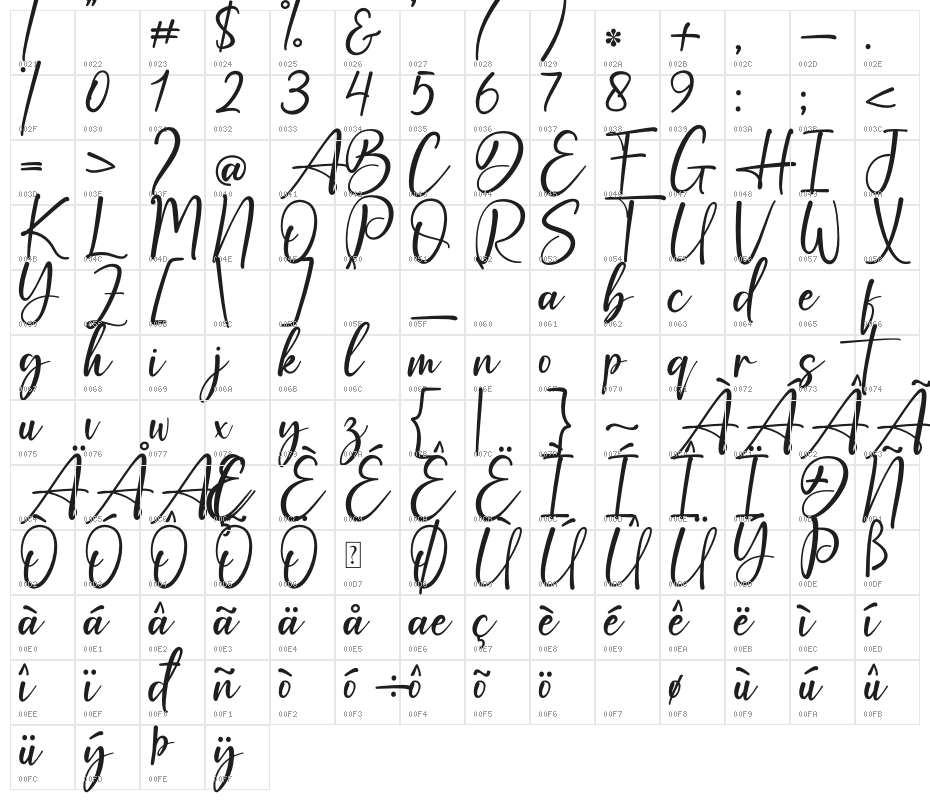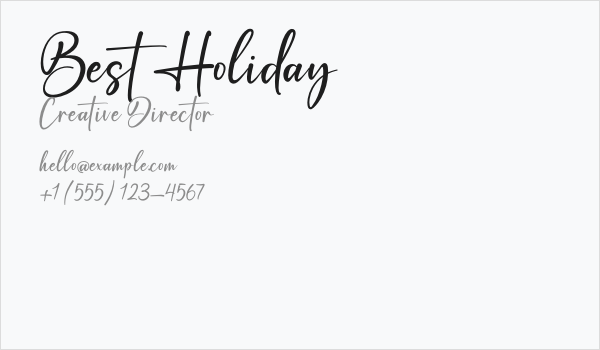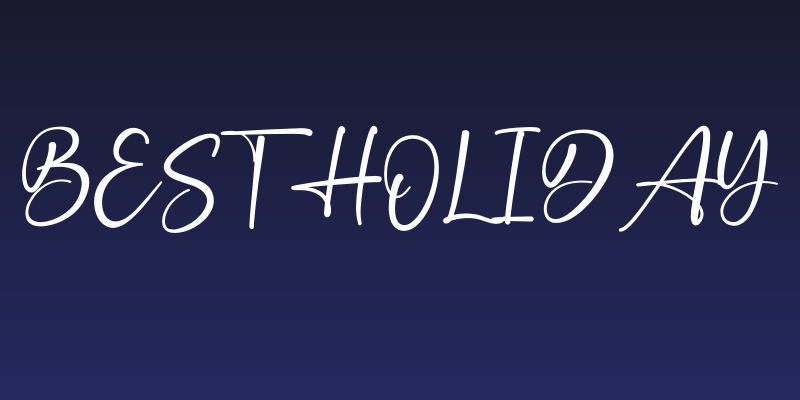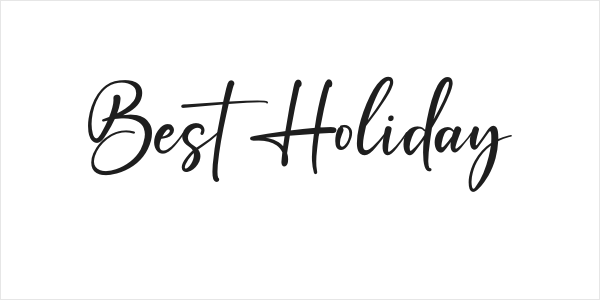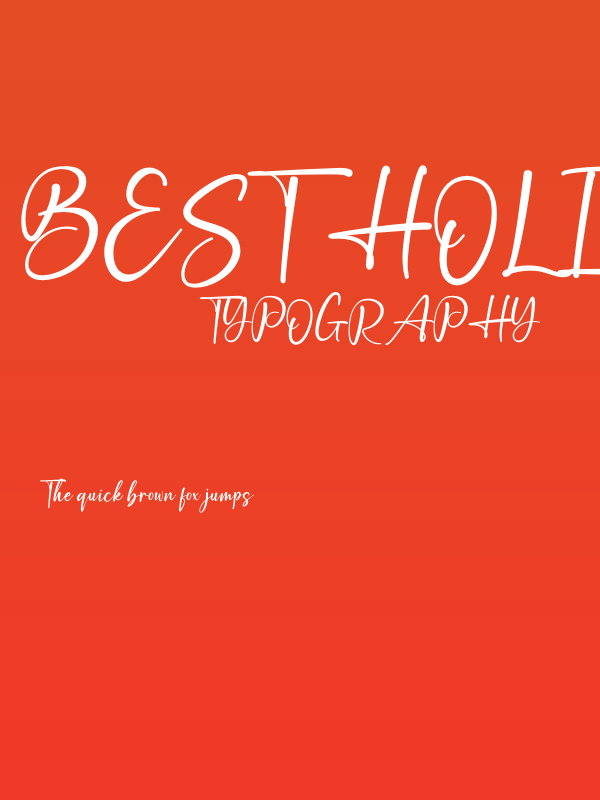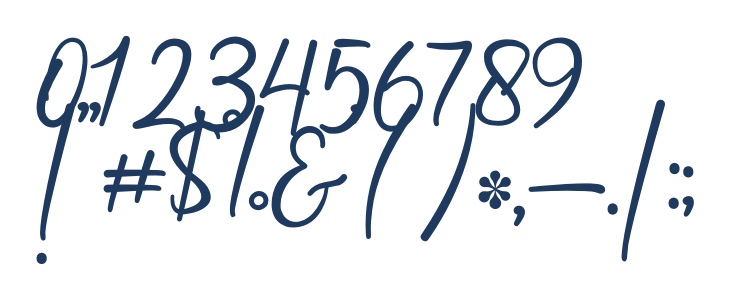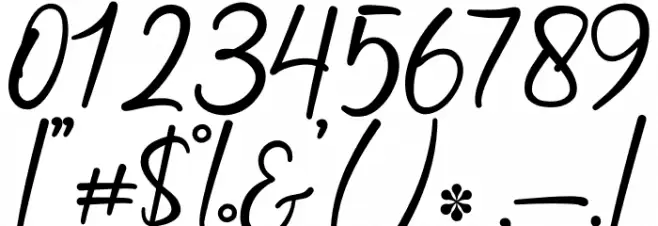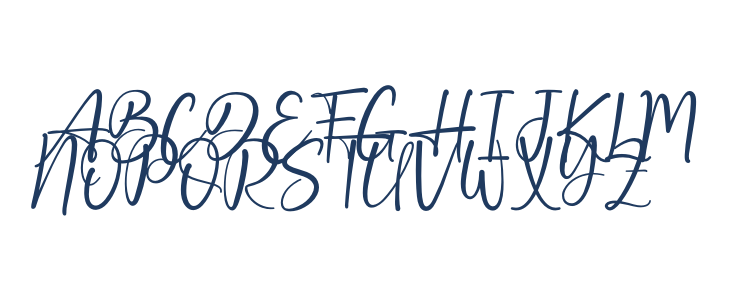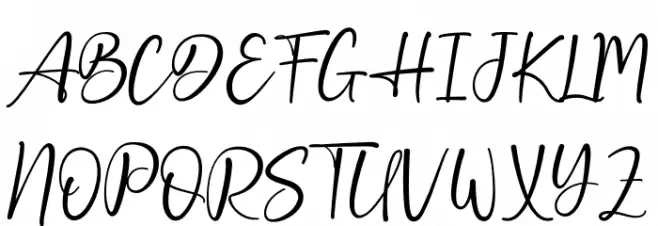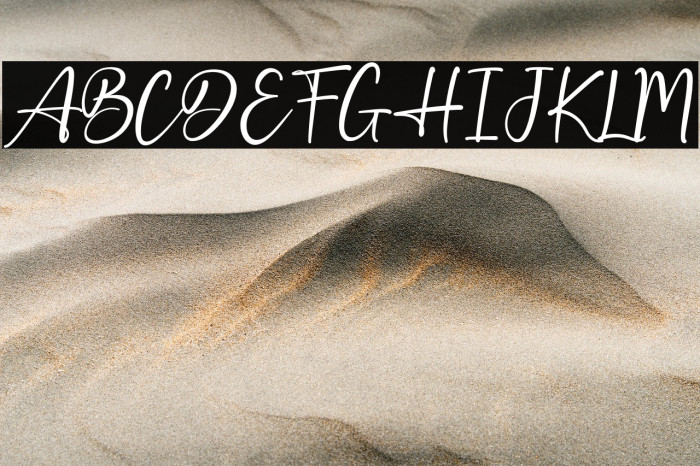
Best Holiday Font
Best Holiday Description
A cursive, handwritten style font with elegant, flowing strokes and a casual, personal feel.
| Overall Style | Elegant, Casual, Handwritten |
| Use Case | Invitations, greeting cards, personal branding, logos, decorative headings |